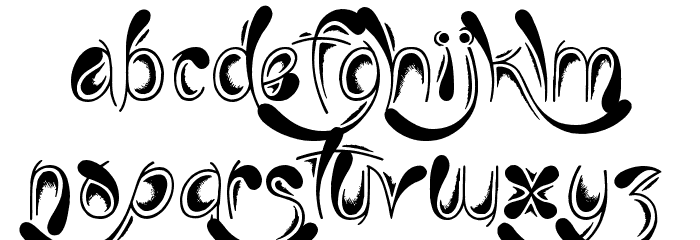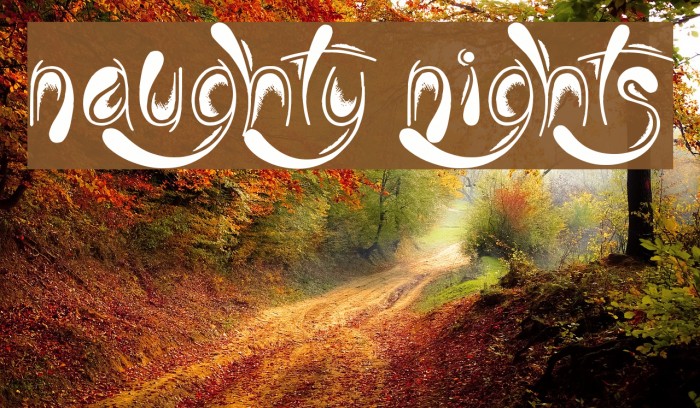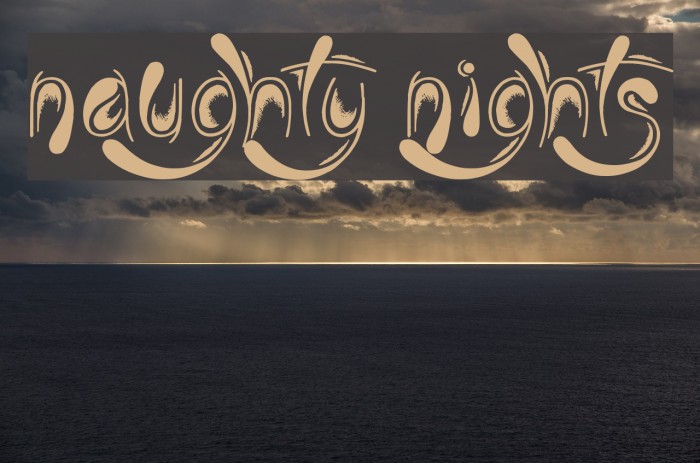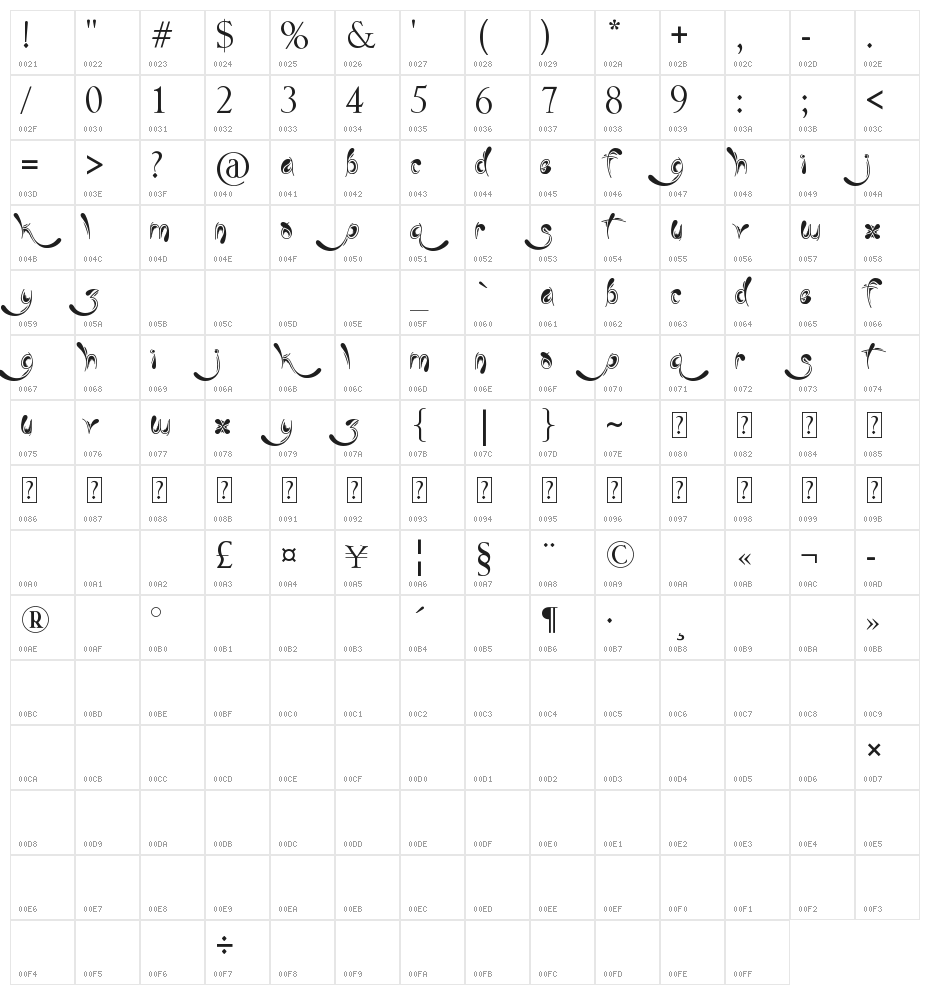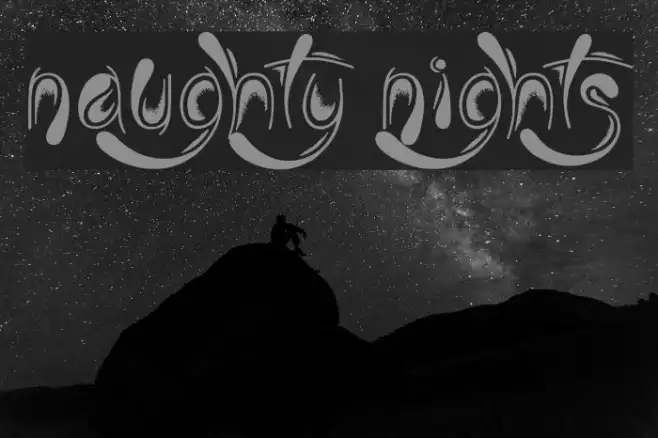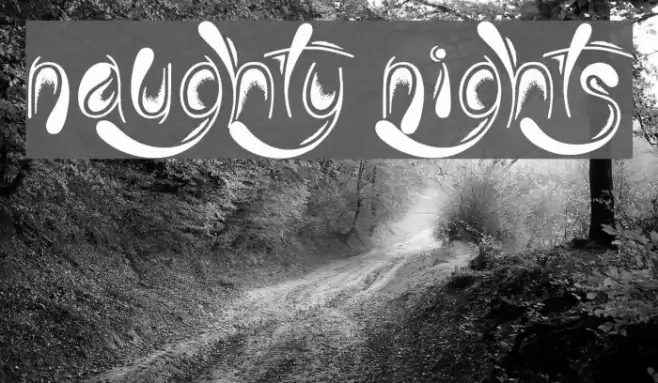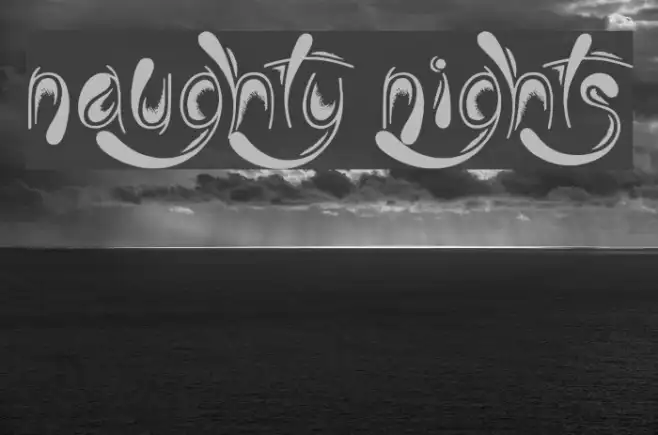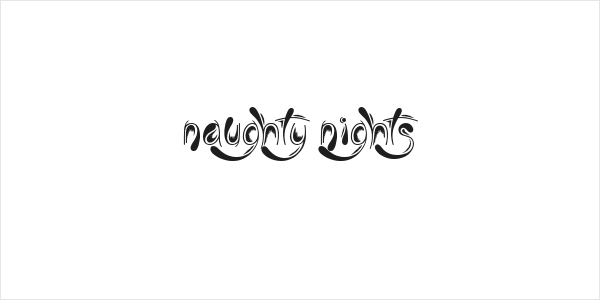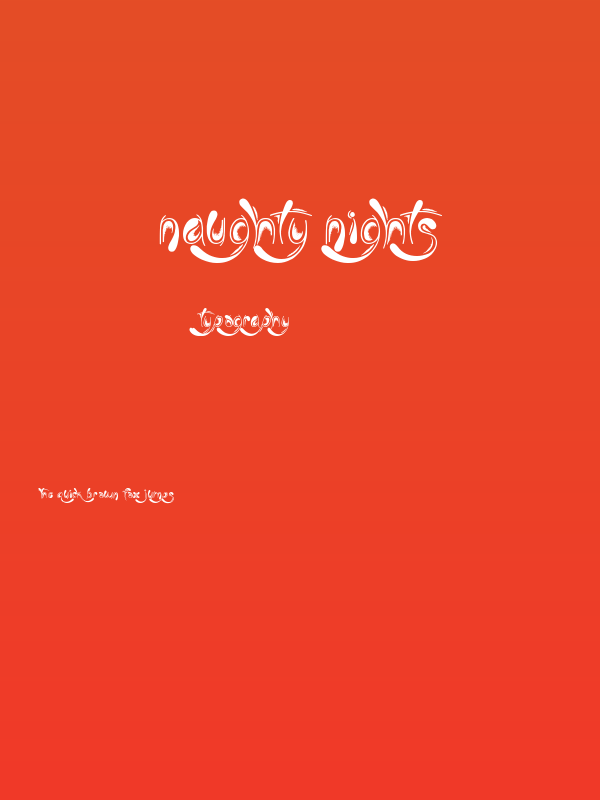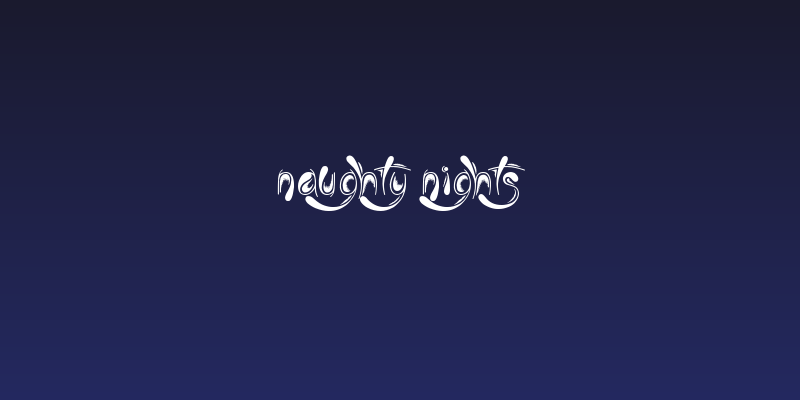
Naughty Nights Font
This font features a bold and decorative style with a playful and whimsical flair. The characters are adorned with unique, swirling embellishments that give them a dynamic and energetic appearance. The strokes are thick and expressive, with a high contrast between the thick and thin parts, adding to the font's dramatic effect. The overall design is highly stylized, making it stand out with its artistic and creative elements. The font is suitable for projects that require a bold statement and a touch of artistic flair.
A bold, decorative font with playful, swirling embellishments.
- Proposed Projects: Ideal for posters, event invitations, branding for creative industries, and any project needing a bold, artistic touch.